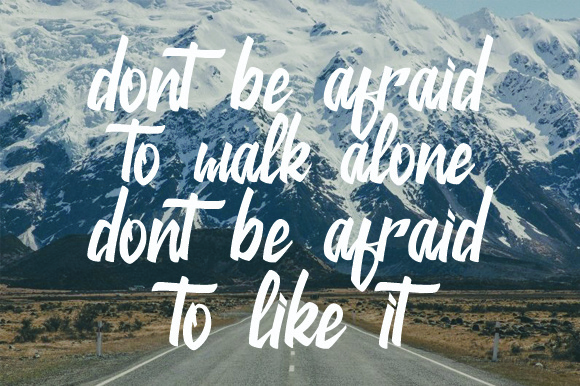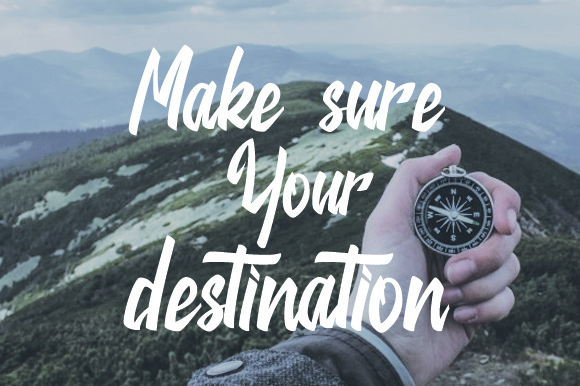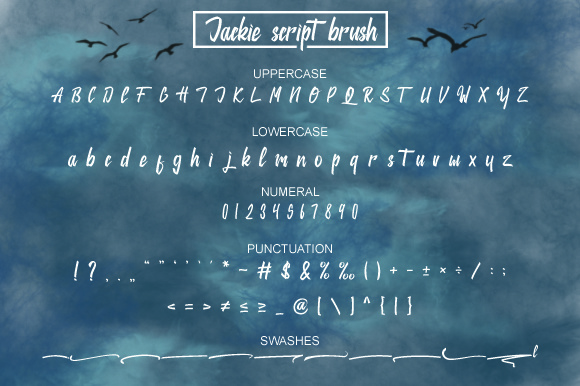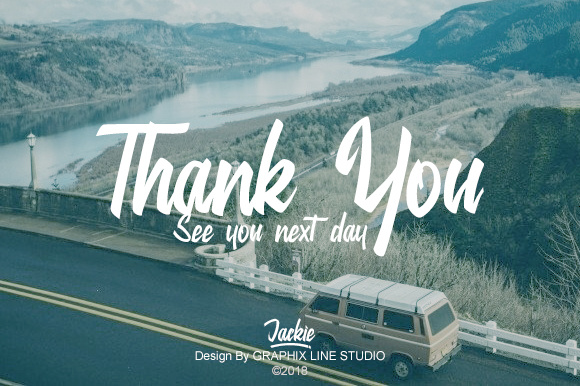
Jackie Font
Jackie is a bold, modern hand lettering script with a strong style and dramatic movements. It’s allowing you to create beautiful hand-made typography in an instant.
Jackie can be used for any kind of design such as branding projects, logos, wedding designs, social media posts, advertisements, and any other project that need handwriting taste.